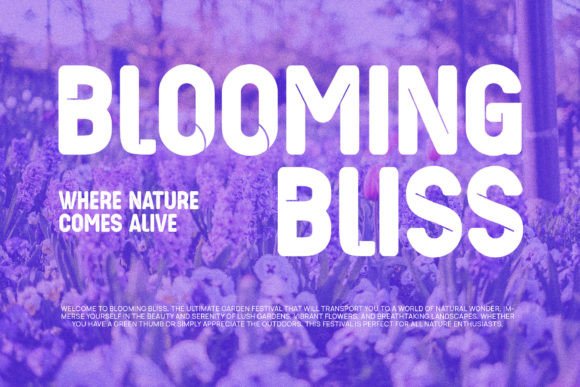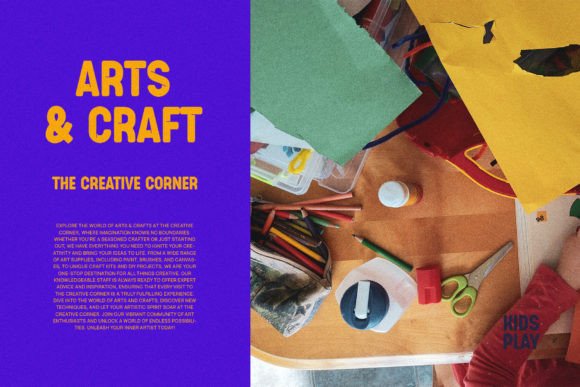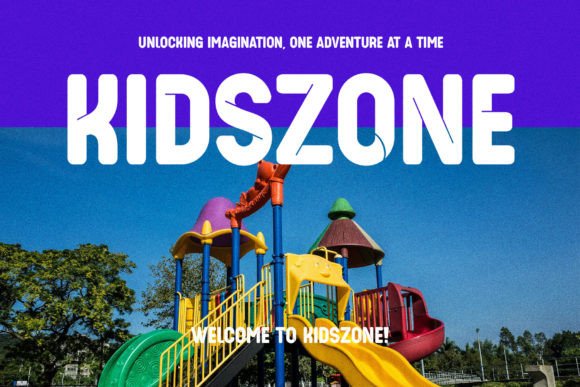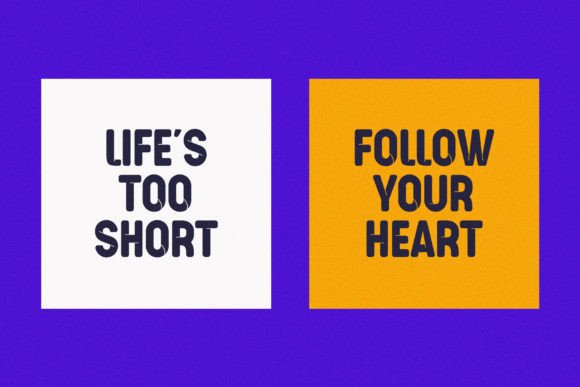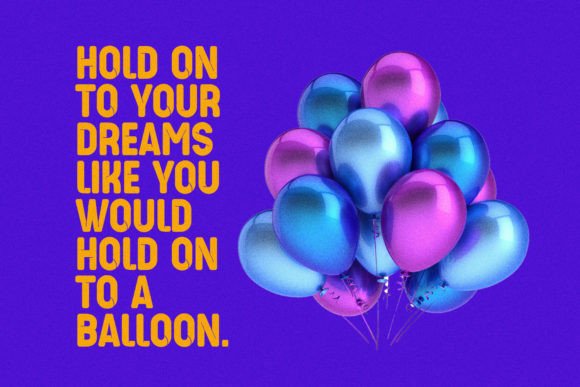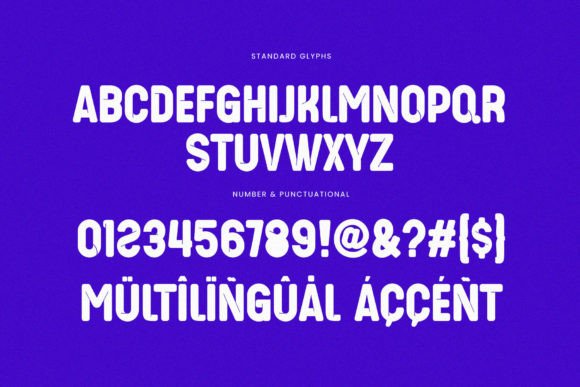
Introduction to Mision Font
As designers, we’ve all been there – staring at a blank canvas, waiting for the perfect font to bring our creative project to life. And then, it happens – you stumble upon a font that perfectly captures the essence of your vision, elevating your design to new heights. For many, this moment is elusive, but with the introduction of Mision Font, the quest for the perfect font has become significantly easier.
Mision Font is a game-changing design resource that has been making waves in the design community, and for good reason. This high-quality font boasts a unique blend of inspiration, precision, and elegance, making it an ideal choice for designers seeking to create visually stunning designs. From brochures to logos, Mision Font is the perfect companion for any creative project, offering a transparent background that allows your designs to shine.
Key Features of Mision Font
- High-quality font design for creative projects, including logos, graphics, and more.
- Transparent background, making it easy to layer and customize in various design applications.
- Unique characteristics include a modern, minimalist aesthetic and a wide range of customization options.
Honest Review: Mision Font
Mision Font is a beautiful addition to any creative project. The high quality of this font makes it perfect for designers looking for a unique and stylish design resource.
- ✨ The Mision Font has a clean and modern design, making it suitable for various applications.
- ✨ The transparent background of the font allows for seamless integration with any background design.
I was impressed with the Mision Font’s versatility and its ability to add a touch of sophistication to any design. The font’s clean lines and modern design make it perfect for creating eye-catching headings and titles.
- ⚠️ The font may not be suitable for small text sizes, as it can become difficult to read.
Overall, I would highly recommend the Mision Font for any creative project. Its high quality, transparent background, and free download make it a valuable design resource for designers of all levels.
Mision Font
Tips for Getting the Most Out of Mision Font
Experiment with different font sizes, colors, and styles to create a unique design effect. Use Mision Font in combination with other design resources to create a cohesive and visually appealing design.
Mision Font is ideal for use in logos, infographics, and other creative projects where a high quality, modern font is needed. It is also great for use in presentations, reports, and other documents where a professional font is required.